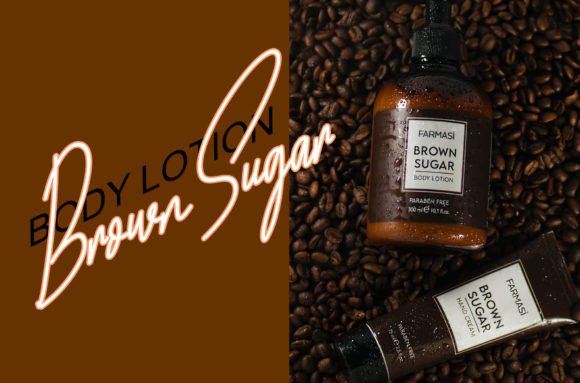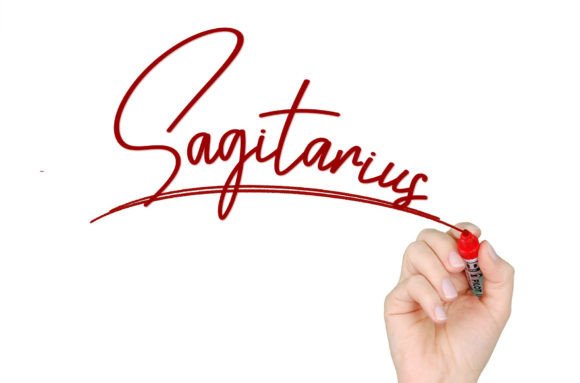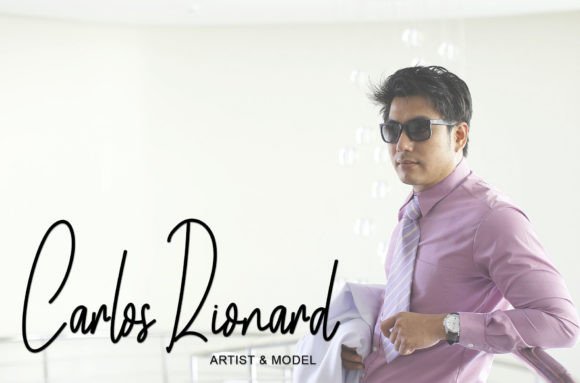
Introduction to Shading Font
Shading is a beautiful script font that exudes simplicity and effortless fun.
Its smooth curves and graceful decoration are reminiscent of a bygone era of elegance and refinement With every letter carefully crafted to perfection, this font is perfect for adding a touch of class to any project that calls for a touch of elegance.
Shading Font offers exceptional quality and versatility, making it a valuable addition to your design toolkit. Whether you’re creating for personal projects or commercial use, Shading Font delivers professional results.